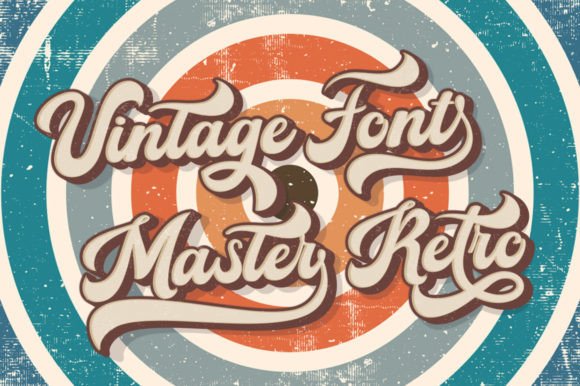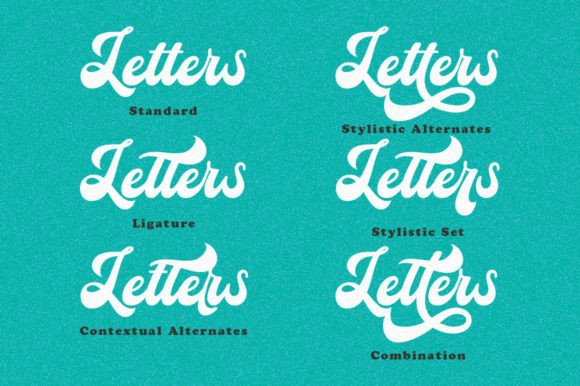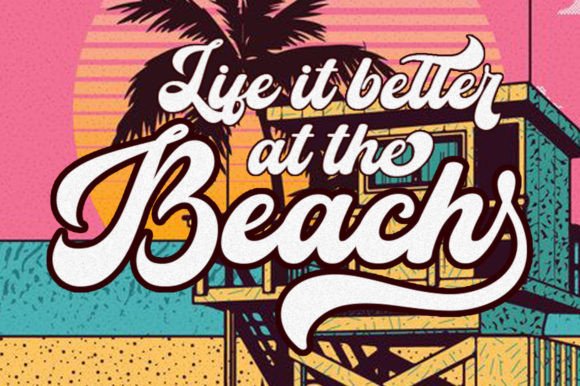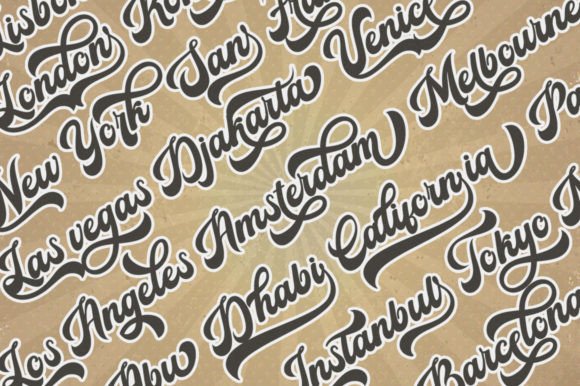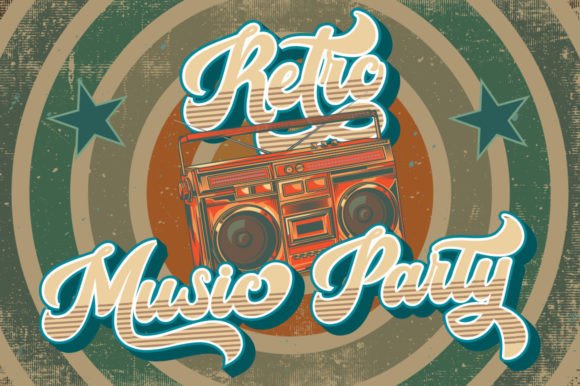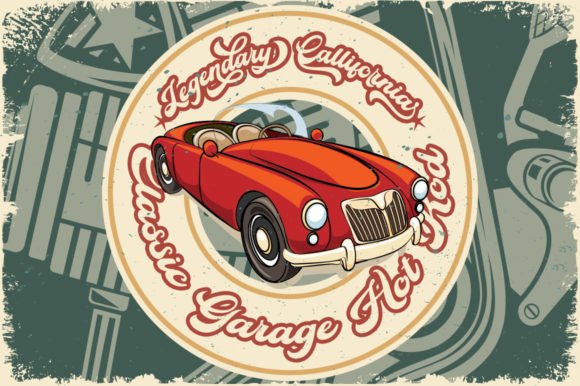
Groovy Designs Ahead: Exploring the Blacklight Script Font
Are you ready to add a dash of retro flair to your designs? Look no further than the Blacklight Script Font, a vintage and groovy script font that’s sure to bring the cool vibes of the 70s to your creative projects. With its funky curves and retro feel, this font is perfect for designers and crafters who want to create fun and playful designs that evoke a sense of nostalgia and bring a smile to their audience’s face.
The Retro Charm of Blacklight Script
Blacklight Script is a one-of-a-kind font that captures the essence of the 1970s with its unique blend of curves, swashes, and glyphs. The font’s design is reminiscent of the iconic blacklight posters that adorned the walls of music venues, cafes, and bedrooms during the decade. Its retro charm is undeniable, making it an excellent choice for designers who want to add a touch of nostalgia to their work.
One of the best things about Blacklight Script is that it’s PUA (Private Use Area) encoded, which means that you can access all the delightful glyphs and swashes effortlessly. PUA encoding allows designers to access a wide range of special characters, including ligatures, ornaments, and swashes, that can be used to add an extra layer of creativity to their designs. With Blacklight Script, you can easily create stunning text-based designs that are sure to impress.
Perfect for Playful and Fun Designs
Blacklight Script is the perfect font for designers who want to create playful and fun designs that are sure to bring a smile to their audience’s face. The font’s funky curves and retro feel make it an excellent choice for a wide range of design projects, including:
- Posters and flyers for music festivals, concerts, and events
- Social media graphics and posts that require a touch of nostalgia
- Branding and packaging designs for products that want to evoke a retro vibe
- Invitations and greeting cards for special occasions
- Website headers and titles that need a dash of personality
Tips for Using Blacklight Script
To get the most out of Blacklight Script, here are a few tips to keep in mind:
- Experiment with different font sizes and colors to create a unique look
- Use the font’s swashes and glyphs to add an extra layer of creativity to your designs
- Combine Blacklight Script with other fonts to create a contrasting look
- Don’t be afraid to get creative and try out new and interesting design ideas
In conclusion, Blacklight Script is a unique and versatile font that’s perfect for designers and crafters who want to add a touch of retro flair to their designs. With its funky curves, retro feel, and PUA encoding, this font is sure to bring the cool vibes of the 70s to your creative projects. Whether you’re designing posters, social media graphics, or branding materials, Blacklight Script is an excellent choice for creating fun and playful designs that are sure to evoke a sense of nostalgia and bring a smile to your audience’s face.